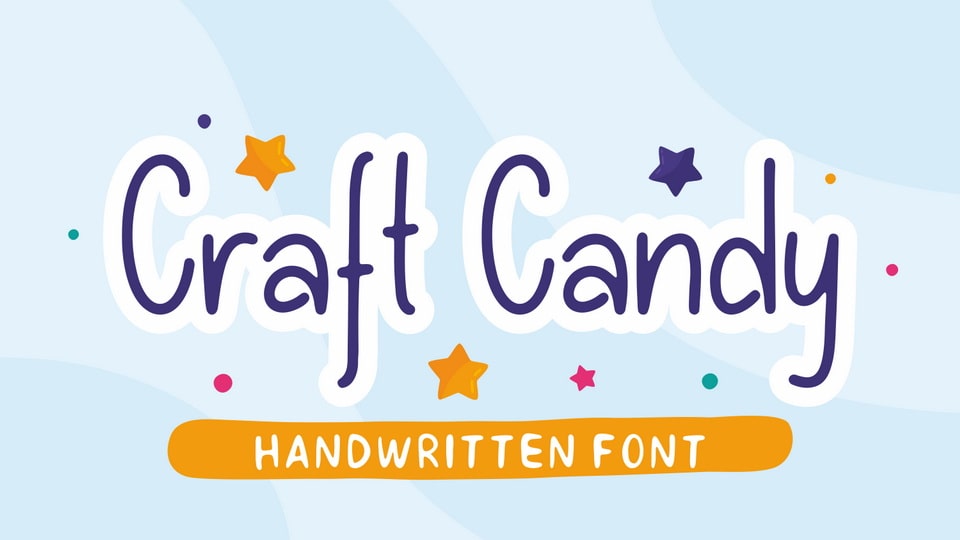
Download Craft Candy font, a hand made script font inspired by funny and playful characters. Craft Candy is especially designed for crafts, games, kids projects.